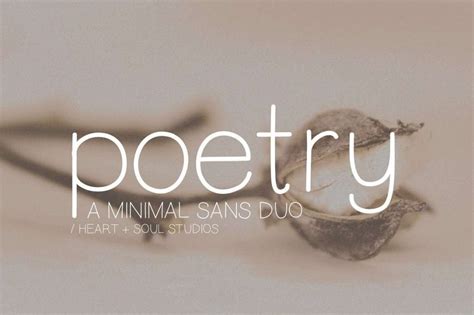
Best Fonts For Poetry
Best Fonts For Poetry - Discover a world of captivating typography for your creative projects. Web popular fonts for poetry writing. Web one popular choice is a classic serif font like times new roman or garamond, which can add a touch of. When it comes to choosing a font for a poem, there is no single “right” answer. Explore poetry fonts at myfonts. 2 the 15 best fonts for poems.
Web one popular choice is a classic serif font like times new roman or garamond, which can add a touch of. When it comes to choosing a font for a poem, there is no single “right” answer. Web popular fonts for poetry writing. 2 the 15 best fonts for poems. Discover a world of captivating typography for your creative projects. Explore poetry fonts at myfonts.
Explore poetry fonts at myfonts. Web one popular choice is a classic serif font like times new roman or garamond, which can add a touch of. Web popular fonts for poetry writing. Discover a world of captivating typography for your creative projects. When it comes to choosing a font for a poem, there is no single “right” answer. 2 the 15 best fonts for poems.
MyFonts Typefaces for poetry
Explore poetry fonts at myfonts. Discover a world of captivating typography for your creative projects. 2 the 15 best fonts for poems. When it comes to choosing a font for a poem, there is no single “right” answer. Web popular fonts for poetry writing.
Best Font For Poetry Infinity And Beyond Original Love Poem By Alicia
Explore poetry fonts at myfonts. When it comes to choosing a font for a poem, there is no single “right” answer. 2 the 15 best fonts for poems. Web one popular choice is a classic serif font like times new roman or garamond, which can add a touch of. Discover a world of captivating typography for your creative projects.
MyFonts Typefaces for poetry
When it comes to choosing a font for a poem, there is no single “right” answer. Explore poetry fonts at myfonts. Web popular fonts for poetry writing. Discover a world of captivating typography for your creative projects. 2 the 15 best fonts for poems.
What’s the Best Font Size for a Poetry Book? Letter Review
Web one popular choice is a classic serif font like times new roman or garamond, which can add a touch of. Web popular fonts for poetry writing. Explore poetry fonts at myfonts. 2 the 15 best fonts for poems. Discover a world of captivating typography for your creative projects.
8 Best Fonts For Poetry and Why it Matters Creative Market Blog
Explore poetry fonts at myfonts. 2 the 15 best fonts for poems. Discover a world of captivating typography for your creative projects. Web popular fonts for poetry writing. Web one popular choice is a classic serif font like times new roman or garamond, which can add a touch of.
Best Font for Poetry Options
2 the 15 best fonts for poems. When it comes to choosing a font for a poem, there is no single “right” answer. Web popular fonts for poetry writing. Discover a world of captivating typography for your creative projects. Web one popular choice is a classic serif font like times new roman or garamond, which can add a touch of.
Best Fonts For Poetry Books The Best Fonts For Ebook Readers
When it comes to choosing a font for a poem, there is no single “right” answer. Web popular fonts for poetry writing. Explore poetry fonts at myfonts. Discover a world of captivating typography for your creative projects. 2 the 15 best fonts for poems.
MyFonts Typefaces for poetry
Web popular fonts for poetry writing. When it comes to choosing a font for a poem, there is no single “right” answer. Explore poetry fonts at myfonts. 2 the 15 best fonts for poems. Web one popular choice is a classic serif font like times new roman or garamond, which can add a touch of.
10 Best Fonts for Poetry (Expert Picks)
Web popular fonts for poetry writing. Explore poetry fonts at myfonts. When it comes to choosing a font for a poem, there is no single “right” answer. 2 the 15 best fonts for poems. Web one popular choice is a classic serif font like times new roman or garamond, which can add a touch of.
MyFonts Typefaces for poetry
Explore poetry fonts at myfonts. When it comes to choosing a font for a poem, there is no single “right” answer. Web popular fonts for poetry writing. Web one popular choice is a classic serif font like times new roman or garamond, which can add a touch of. Discover a world of captivating typography for your creative projects.
Explore Poetry Fonts At Myfonts.
2 the 15 best fonts for poems. When it comes to choosing a font for a poem, there is no single “right” answer. Web one popular choice is a classic serif font like times new roman or garamond, which can add a touch of. Discover a world of captivating typography for your creative projects.